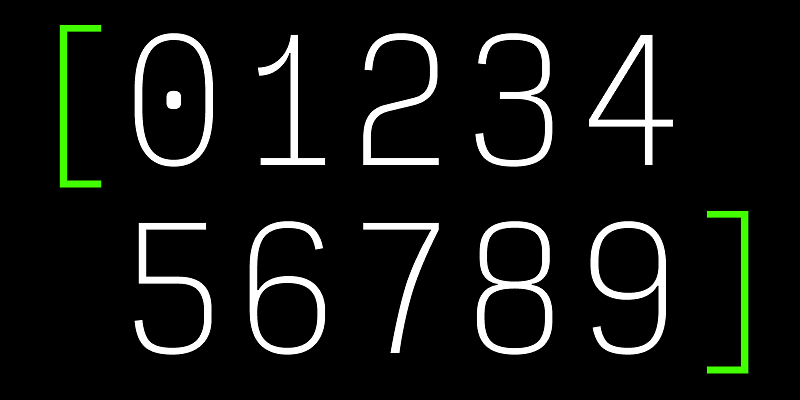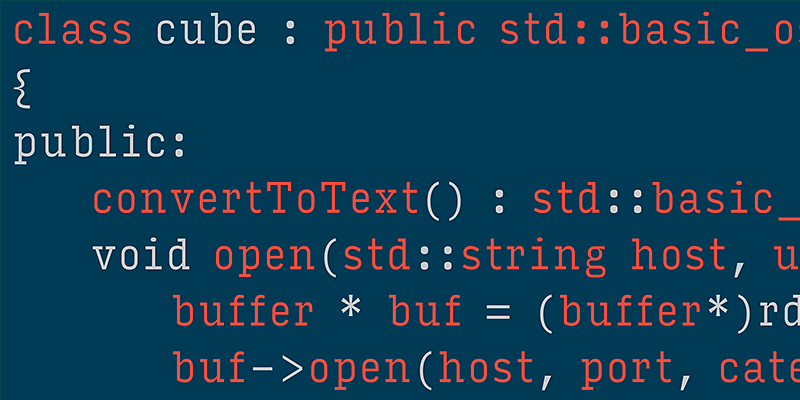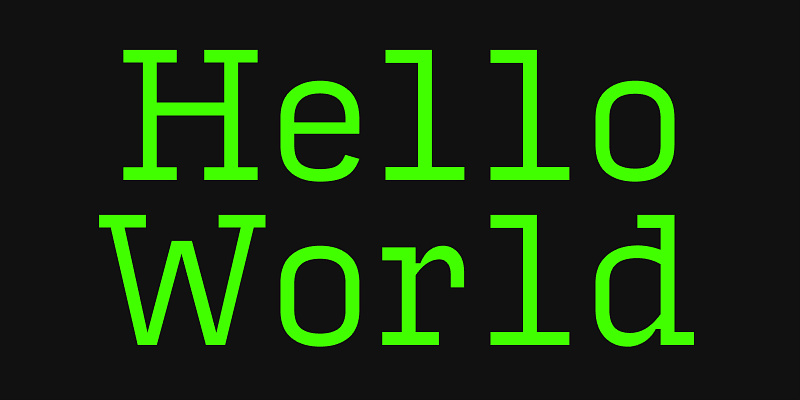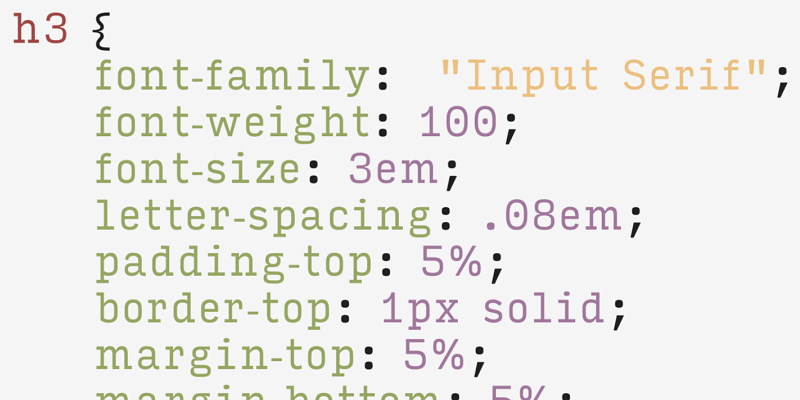
Like many programmers, David Jonathan Ross had used monospaced fonts for his code. That was before he questioned the convention and answered with a fresh approach for data and programming aesthetics. Input finds inspiration in early computer consoles but looks towards a typographically rich future, where coding environments overcome technical limitations and allow you to have full control over your display.
David Jonathan Ross draws letters of all shapes and sizes for custom and retail typeface designs from his studio in the woods of Western Massachusetts. A native of Los Angeles, He began drawing typefaces at Hampshire College and joined The Font Bureau in 2007 where he honed his bézier-wrangling skills. Now he publishes his typeface designs at his own foundry, DJR, as well as working on projects with Type Network and developing unusual display faces for his Font of the Month Club.